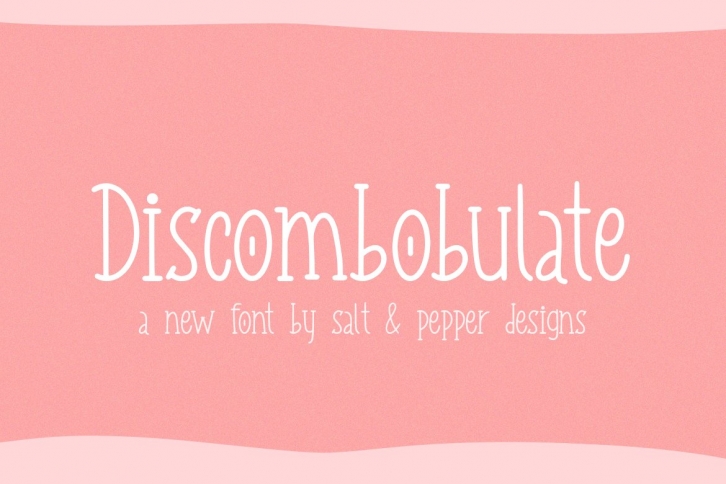
Discombobulate is a beautiful font that was designed by Salt and Pepper Designs. It's a great choice for designers and creatives who need such a font. It was released on October 10, 2020 and the file size is 1.68 MB. Discombobulate may give a more youthful, expressive and casual look to your project. It is a very beautiful, refined, elegant, and high-quality font.